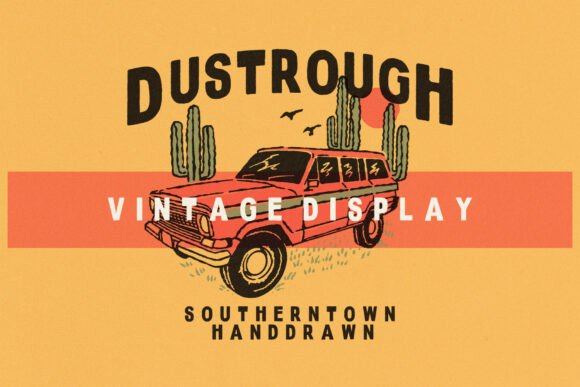
Dustrough Reguler Font: A Vintage Hand-Drawn Typeface for Bold Headlines
The Dustrough Reguler Font is a hand-drawn vintage display font designed for creating loud and tactile headlines. Its unique and distinctive style makes it perfect for craft packaging, outdoor gear, sports marks, cafe menus, beer labels, festival posters, and any project that needs heritage swagger with contemporary punch.
Key Features of Dustrough Reguler Font
The Dustrough typeface is characterized by its compact all-caps forms, chunky verticals, soft corners, and imperfect edges that mimic inked wood-type and sun-faded signage. The bowls are slightly squared, apertures are tight, and the pinched joints and angled shoulders give letters a cut-paper bite without sacrificing legibility.
Three Styles to Choose From
The Dustrough font family is available in three styles: Regular, Rough, and Outline. This allows you to dial in the texture you need, from clean to gritty, or layer fills and outlines for bold poster effects.
- Regular: A clean yet distinctive look, perfect for creating bold and eye-catching headlines.
- Rough: A worn, textured effect for an authentic retro feel, ideal for adding a vintage touch to your designs.
- Outline: An outline style suitable for layered combinations, allowing you to create complex and visually appealing designs.
Design Characteristics
The Dustrough Reguler Font has several design characteristics that make it stand out:
- Wide stems and sturdy counters: Providing a solid foundation for the font, making it easy to read and understand.
- Naturally arched rhythm: Giving the font a sense of movement and flow, perfect for creating dynamic and engaging headlines.
- Confident, workmanlike, and warm voice: Making it suitable for a wide range of applications, from craft packaging to festival posters.
Use Cases for Dustrough Reguler Font
The Dustrough Reguler Font is versatile and can be used in a variety of contexts:
- Craft packaging: Add a touch of heritage swagger to your craft packaging with the Dustrough font.
- Outdoor gear: Perfect for creating bold and eye-catching headlines for outdoor gear and equipment.
- Sports marks: Use the Dustrough font to create confident and dynamic sports marks.
- Cafe menus: Add a vintage touch to your cafe menus with the Rough style.
- Beer labels: Create bold and eye-catching beer labels with the Dustrough font.
- Festival posters: Use the Dustrough font to create visually appealing and dynamic festival posters.
Why Choose Dustrough Reguler Font?
The Dustrough Reguler Font is a unique and versatile font that offers a range of benefits:
- Heritage swagger: The Dustrough font has a confident and workmanlike voice that adds a touch of heritage swagger to your designs.
- Contemporary punch: The font’s bold and eye-catching style makes it perfect for creating modern and dynamic designs.
- Legibility: The Dustrough font is designed to be easy to read and understand, making it perfect for a wide range of applications.
The Dustrough Reguler Font is a hand-drawn vintage display font that offers a unique and distinctive style for creating bold and eye-catching headlines. With its three styles, design characteristics, and versatility, it’s perfect for a wide range of applications. Whether you’re looking to add a touch of heritage swagger or create modern and dynamic designs, the Dustrough font is an excellent choice.